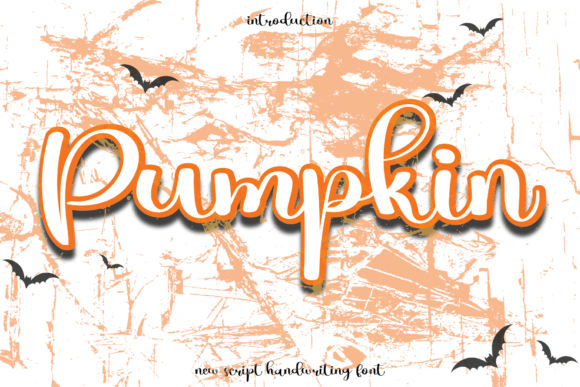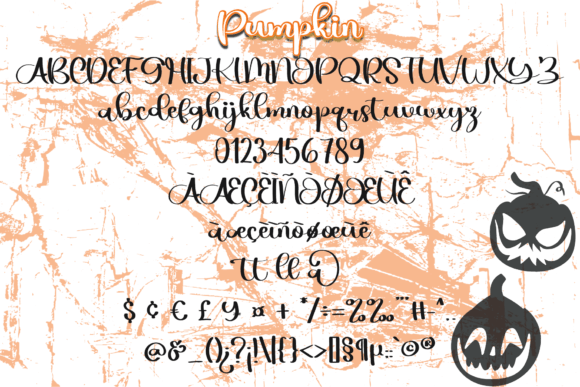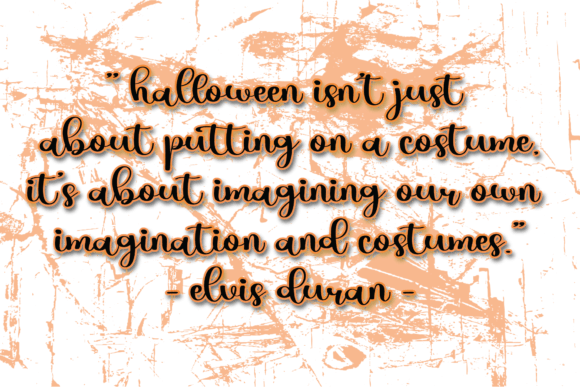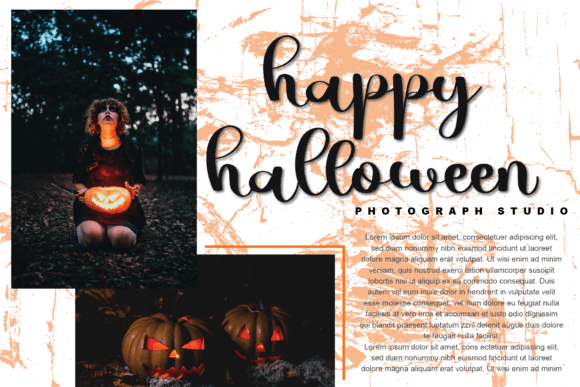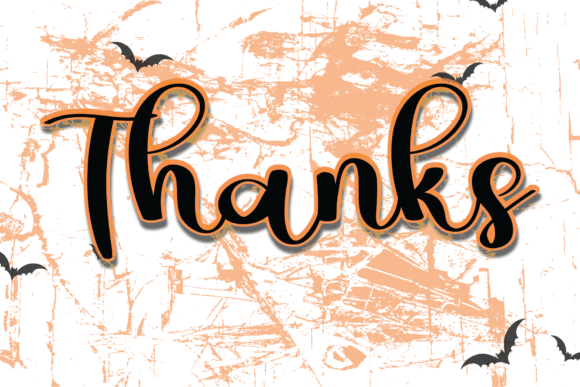
Pumpkin Font
About Pumpkin Font
Pumpkin is a typeface with a strong personality, making it an ideal choice for display projects. Its distinctive and bold characteristics make it perfectly suited for a wide range of applications, from branding and logos to candy and food packages. Pumpkin stands out as a bright and fun typeface with a unique appearance that adds vibrancy to any design.
In branding and logo design, Pumpkin brings a sense of boldness and individuality. Its strong personality ensures that it can effectively convey the essence of a brand, making it memorable and eye-catching. The unique appearance of Pumpkin adds a touch of creativity and originality to logos and brand identities.
For candy and food packages, Pumpkin’s vibrant and fun design enhances the visual appeal. Its bold and distinctive letterforms contribute to creating a lively and engaging packaging design that captures the attention of consumers. The typeface adds a playful element, making it suitable for products that want to convey a sense of excitement and enjoyment.
The versatility of Pumpkin allows it to shine in various display applications. Whether used for headlines, posters, or other display projects, Pumpkin’s strong personality and unique appearance make it a standout choice. It can add a dynamic and energetic feel to any design, creating visual interest and impact.
In summary, Pumpkin is more than just a typeface; it’s a design asset that brings a strong personality and vibrancy to display projects. Whether you’re working on branding, packaging, or other display applications, Pumpkin is ready to infuse your designs with its bold and fun character, making them memorable and visually appealing.